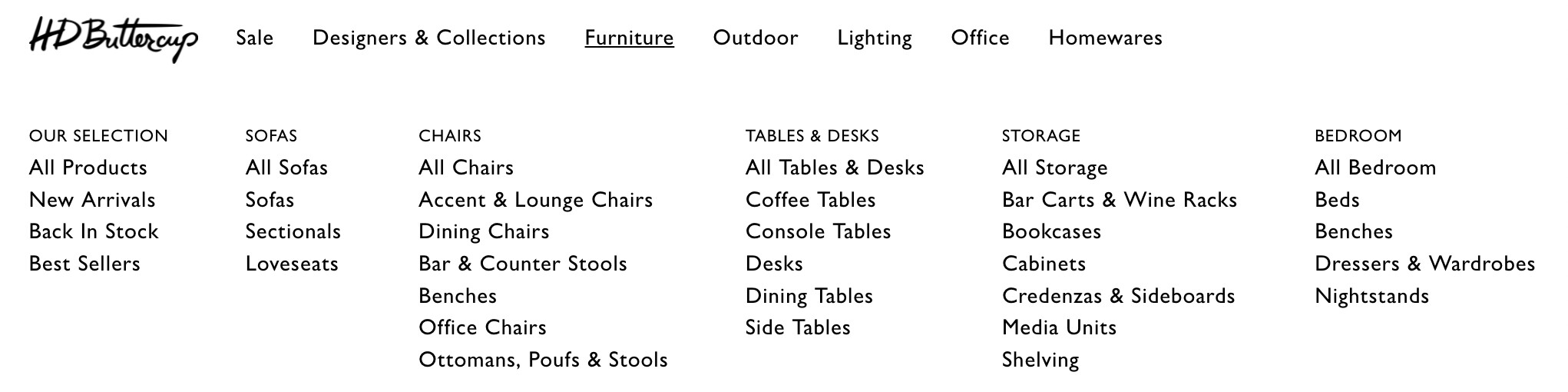
I found this company when I was looking for bedroom furniture, since then I adored their typography mix. Does anyone know what are the fonts used in this shop?
The small typeface is Gill Sans. Their logo is a custom-designed bit of handwriting — not a typeface.